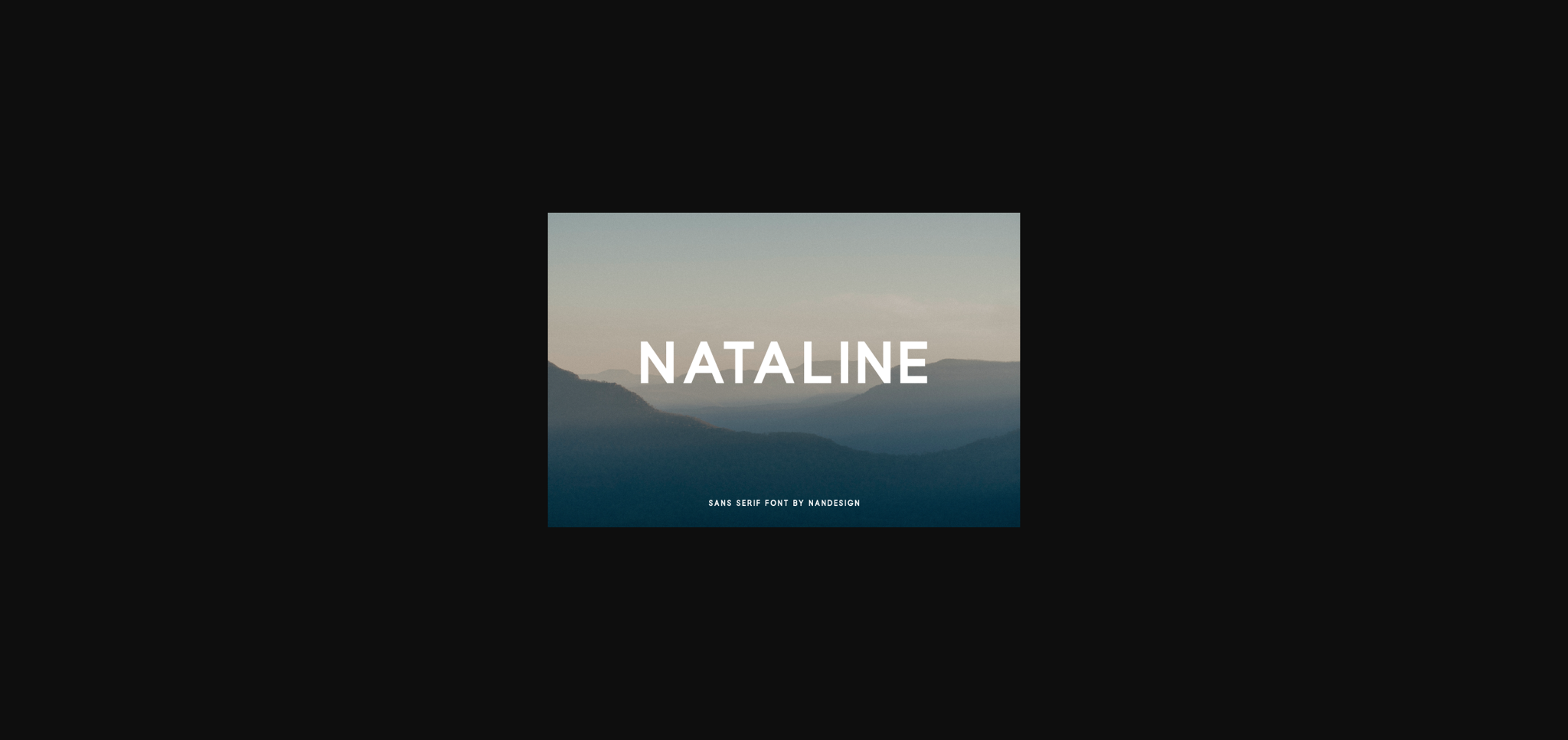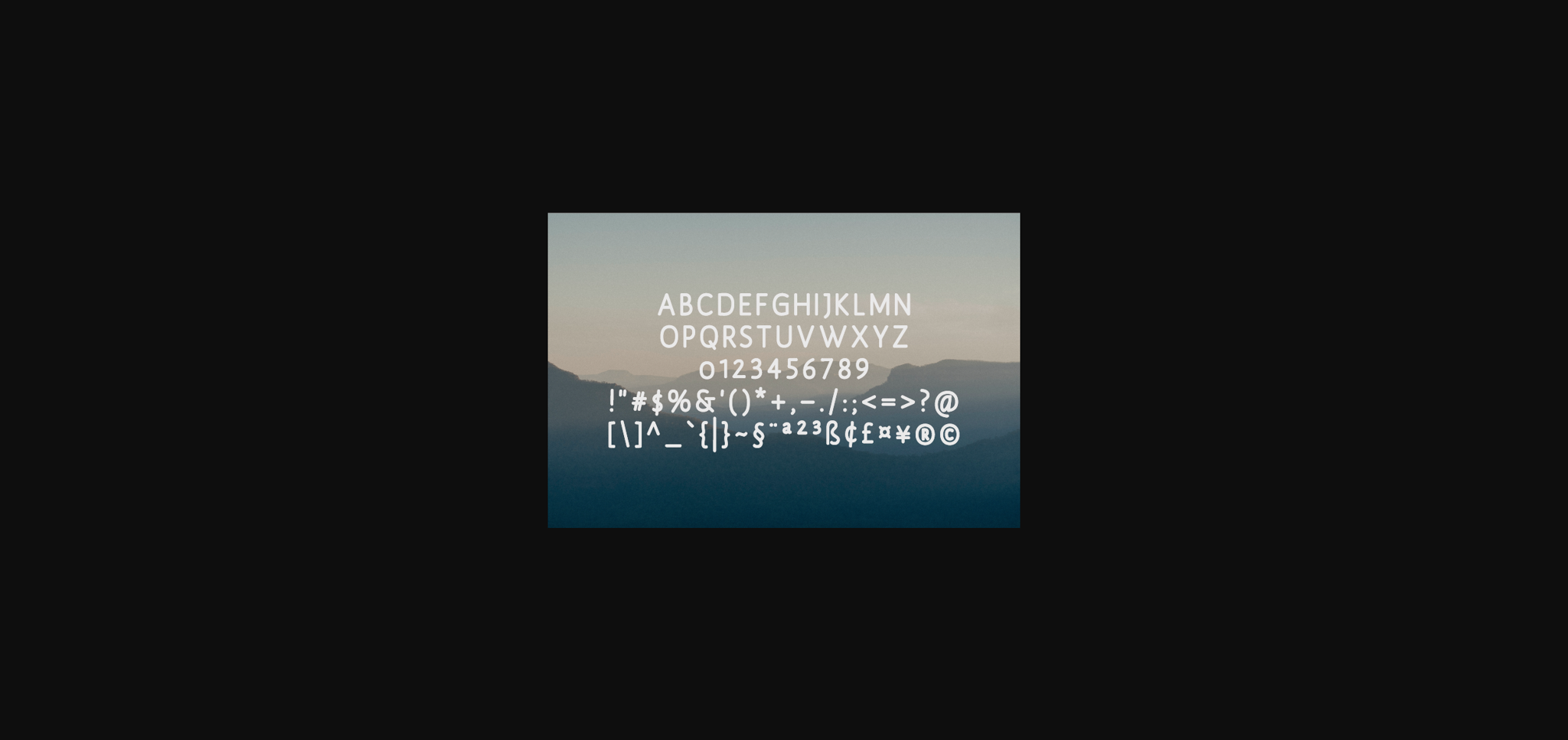
About Nataline Font
Nataline is a simple and casual sans serif font with an undeniably clean feel. With its neat and beautiful arrangement of letters, this typeface will look outstanding in both formal and non-formal designs.